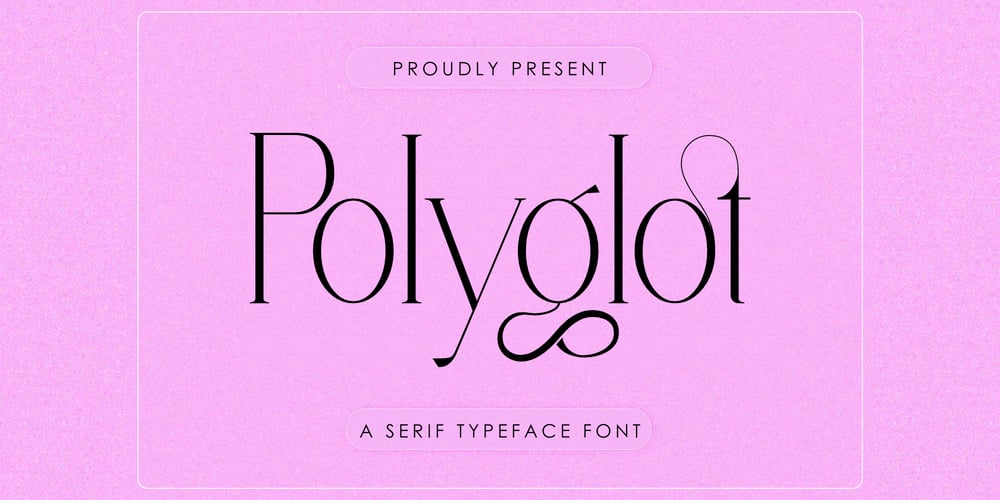
Polyglot
Polyglot font
Polyglot Font Family was designed by Muhamad Junaid and published by MJType. Polyglot contains 1 styles and family package options. Introducing Polyglot Typeface. The unique and fashionable font with tons of ligatures uppercase and lowercase. and supports multilingual languages. the straight lines combined with a slight curve make polyglot look minimalist and elegant.Create unique & elegant logotype, use it as an elegant for your next project headlines, logotype designs,posters or t-shirts, business cards.Thanks!